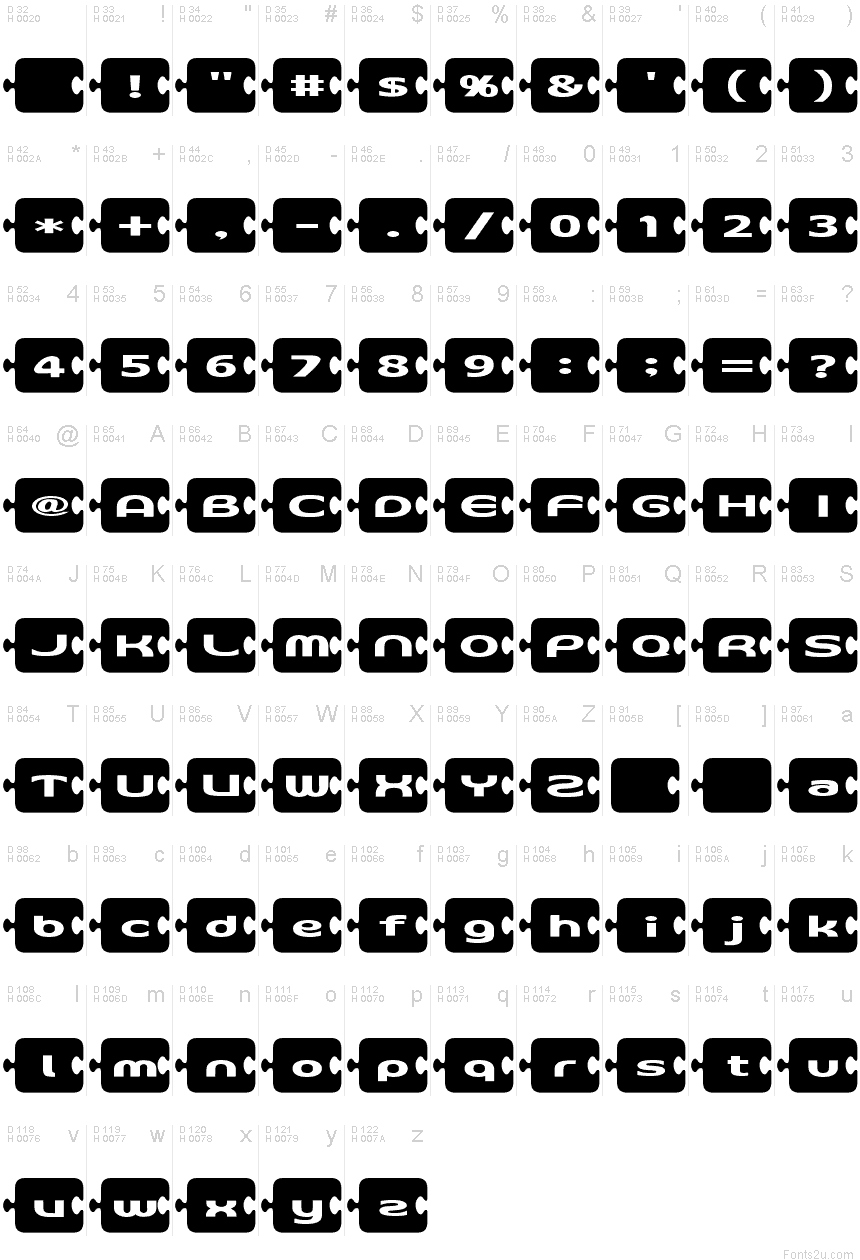
D3 PazzlismA
D3 Pazzlism A font by YOSHIYASU Ito of DigitalDreamDesign is a free decorative display typeface that turns every letter into a tiny puzzle tile. Each character sits in a rounded rectangular block, with cut-out shapes and notches that snap into a rhythm across the line, like cards sliding along a track. The high-impact black-and-white look feels tactile and mechanical, giving your text the vibe of a game board or retro gadget interface.
Using D3 Pazzlism A, words become modular units you can stack, space, and sequence for bold titles and experimental layouts. This free font shines on arcade-style posters, game menus, escape room branding, puzzle apps, tech event graphics, and glitchy album covers. Set it big to show off the tile shapes, and pair it with a simple geometric sans serif for supporting text so the puzzle blocks stay in the spotlight.